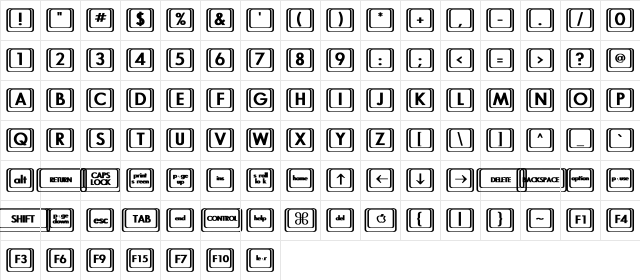
Keyboard KeysBT Bold
Keyboard KeysBT is a composed and adaptable typeface that performs quietly and consistently across a wide range of design contexts. Its bold stroke weight gives it real presence on the page.